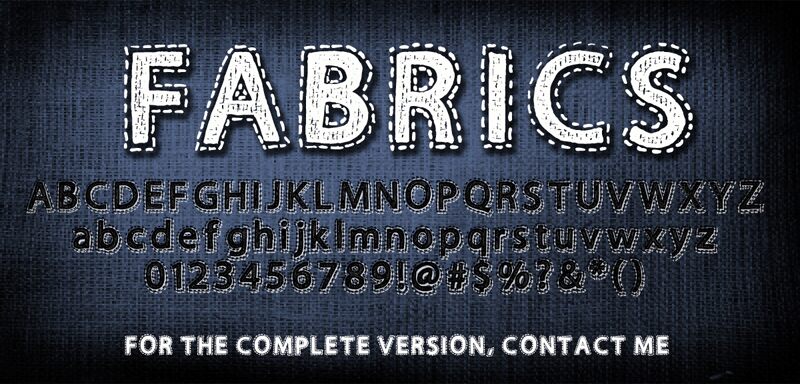
Fabrics is a free stitched decorative display font with broad, upright capitals. Each letter combines a rough textile-like fill with a loose dashed seam around its edge. The uneven marks give the design the look of a handmade fabric patch.
A craft-fair poster is an especially convincing setting, since the lettering already resembles sewn signage. It also suits clothing labels and children's activity books, where the patchwork texture can echo cloth, thread, and cut-paper artwork. For party invitations and classroom displays, the stitched borders can become part of a cheerful handmade theme.